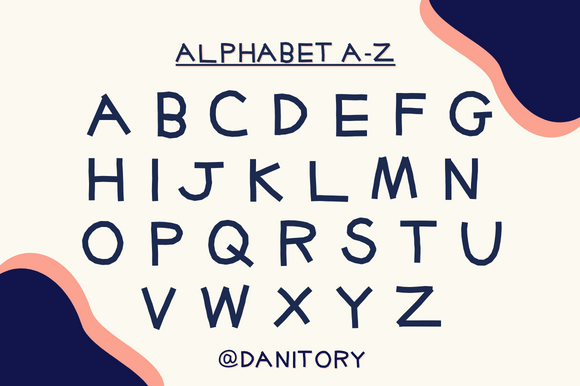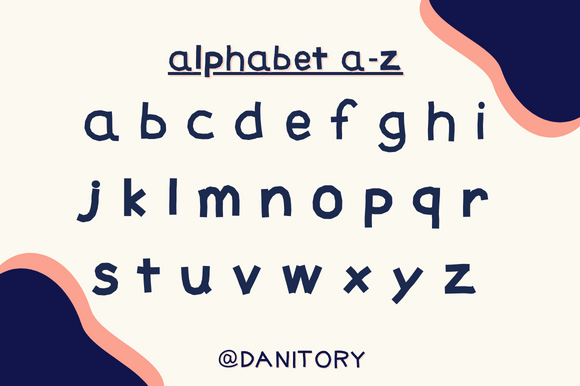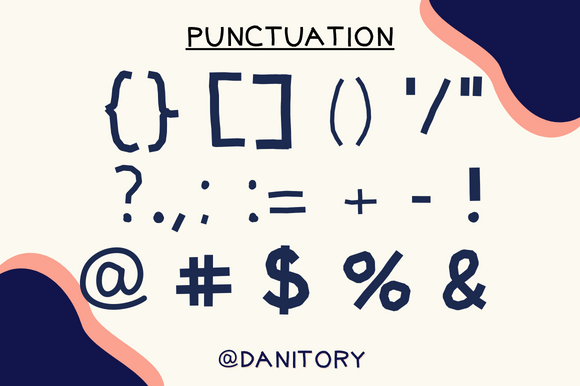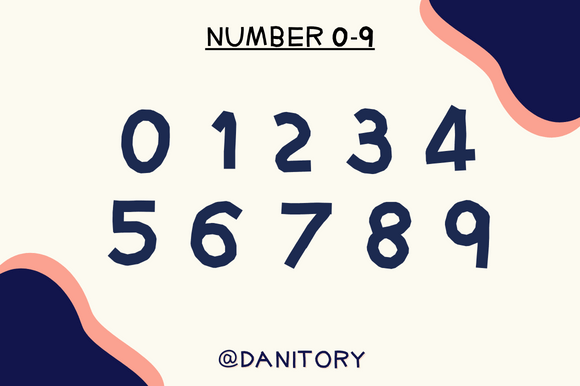
Introducing Empire Font: The Whimsical and Fun Handwritten Font for All Occasions
Are you tired of using the same old fonts for your designs and crafts? Look no further than Empire Font, a handwritten font that exudes a whimsical and fun personality. This versatile font is perfect for a wide range of projects, from digital designs and presentations to crafts and greeting cards. In this article, we’ll dive into the world of Empire Font and explore its features, uses, and benefits for designers and crafters alike.
What is Empire Font?
Empire Font is a unique and charming handwritten font that is sure to capture the attention of your audience. Its whimsical and fun personality makes it perfect for projects that require a touch of personality and flair. Whether you’re creating a digital design, crafting a handmade card, or designing a presentation, Empire Font is the perfect choice.
Key Features of Empire Font
- Whimsical and Fun Personality: Empire Font has a playful and carefree personality that is sure to add a touch of whimsy to your designs.
- Handwritten Style: This font features a beautiful, handwritten style that is perfect for creating personal and unique designs.
- Versatile: Empire Font can be used for a wide range of projects, from digital designs and presentations to crafts and greeting cards.
- Easy to Read: Despite its playful personality, Empire Font is easy to read and understand, making it perfect for body text and headings.
Uses of Empire Font
Empire Font is a versatile font that can be used for a wide range of projects, including:
- Digital Designs: Use Empire Font to add a touch of personality to your digital designs, such as social media graphics, blog posts, and website headers.
- Crafts: Empire Font is perfect for crafters who want to add a personal touch to their projects, such as handmade cards, scrapbooking, and DIY projects.
- Presentations: Use Empire Font to add a touch of whimsy to your presentations, making them more engaging and fun to read.
- Greeting Cards: Empire Font is perfect for creating unique and personalized greeting cards for special occasions.
Benefits of Using Empire Font
So why choose Empire Font for your next project? Here are just a few benefits of using this amazing font:
- Adds Personality to Your Designs: Empire Font adds a touch of personality and whimsy to your designs, making them stand out from the crowd.
- Versatile: Empire Font can be used for a wide range of projects, making it a great addition to your font library.
- Unique: Empire Font is a unique and charming font that is sure to capture the attention of your audience.
Tips for Using Empire Font
Here are a few tips for getting the most out of Empire Font:
- Use it for Headings and Titles: Empire Font is perfect for headings and titles, where its whimsical personality can really shine.
- Pair it with Other Fonts: Empire Font pairs well with other fonts, such as sans-serif fonts, to create a unique and interesting design.
- Experiment with Colors: Empire Font looks great in a wide range of colors, so don’t be afraid to experiment and find the perfect color for your design.
| Font Name | Empire Font |
| Author | danita.kukkai |
In conclusion, Empire Font is a unique and charming handwritten font that is perfect for designers and crafters who want to add a touch of personality and whimsy to their projects. With its versatile personality, easy-to-read style, and wide range of uses, Empire Font is sure to become your go-to font for all occasions. So why not give it a try and see the difference it can make in your designs?